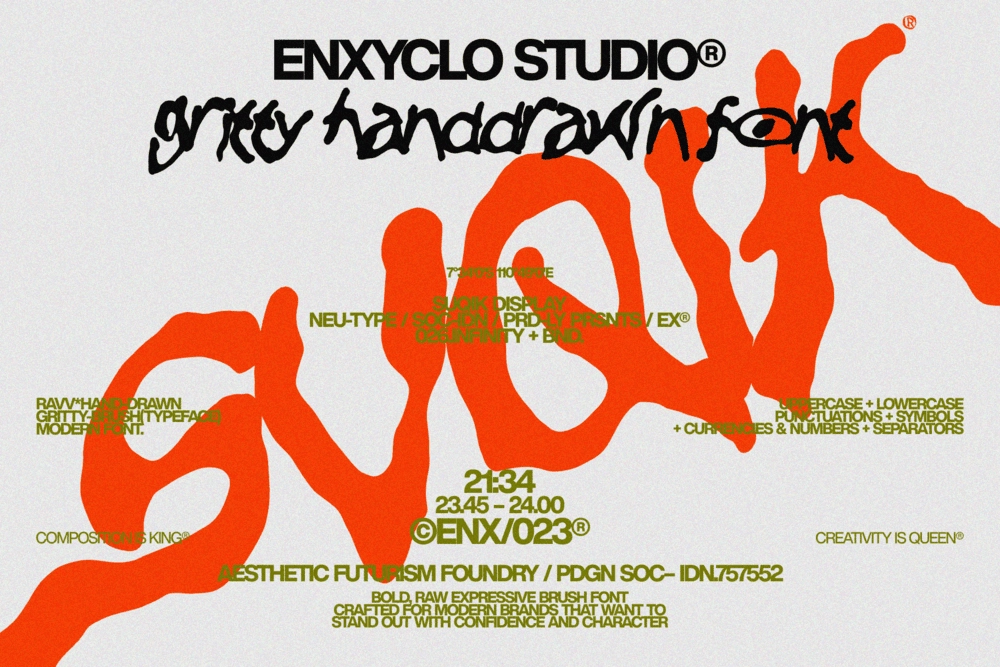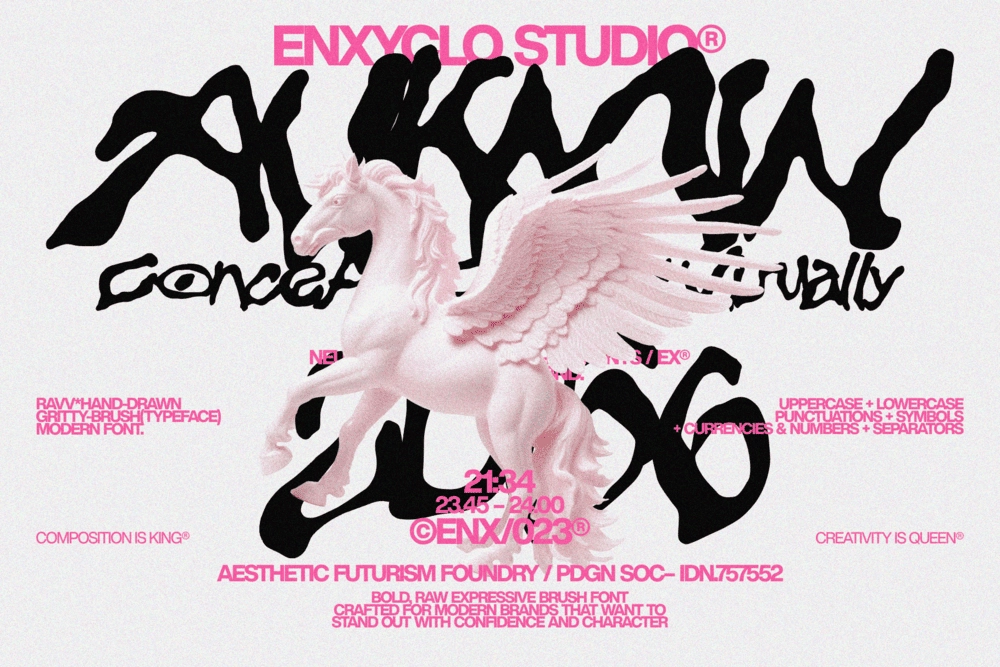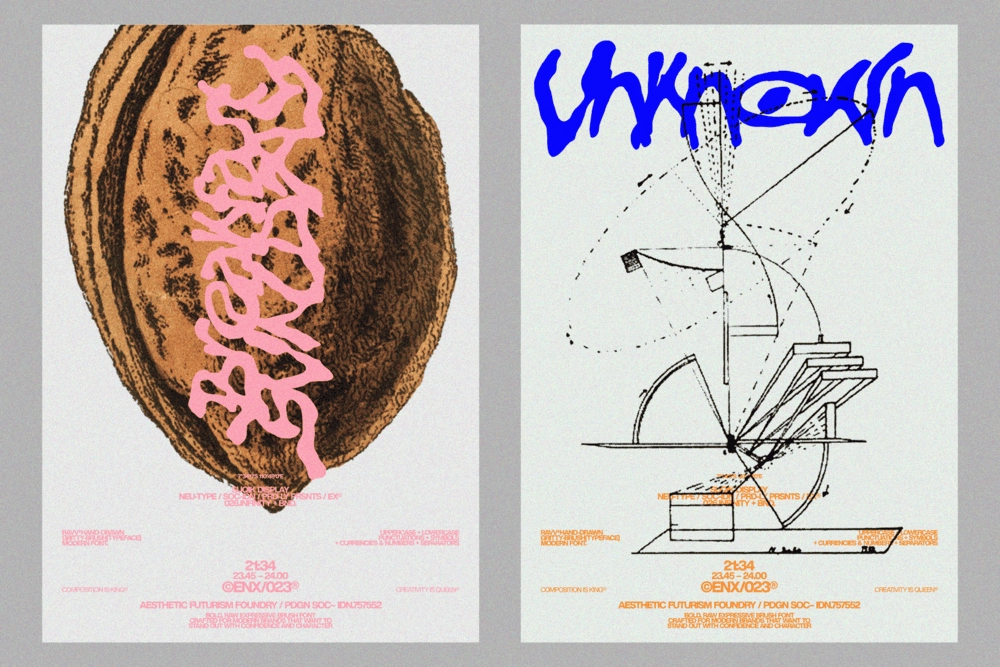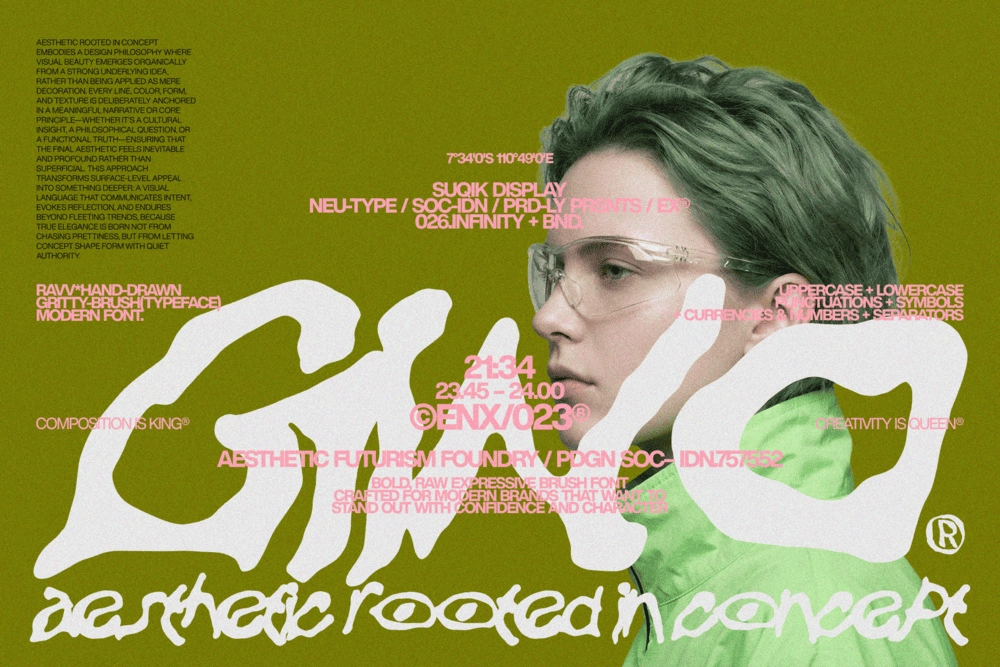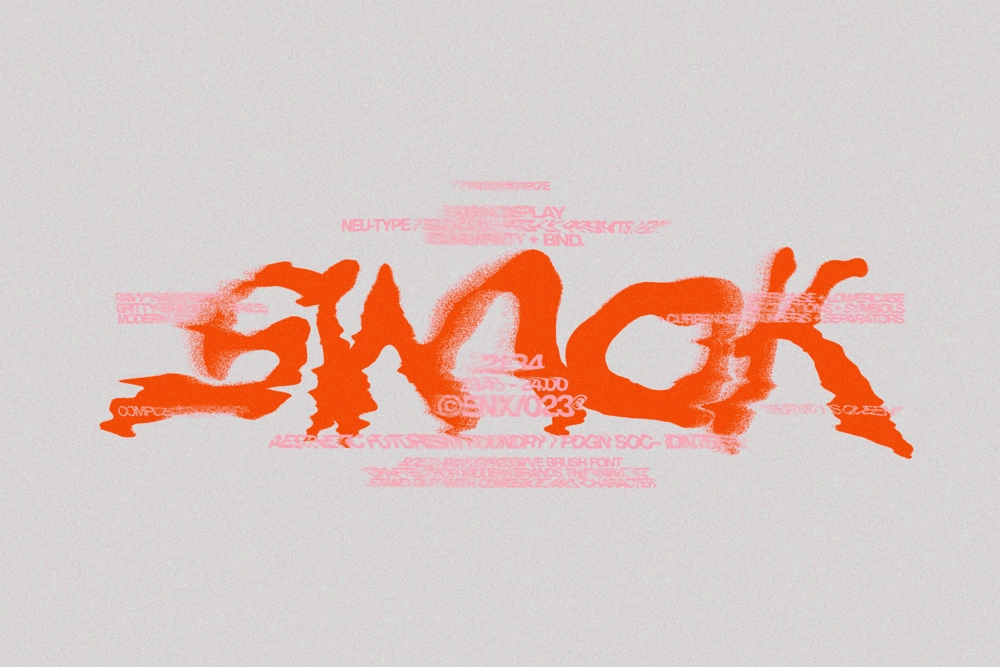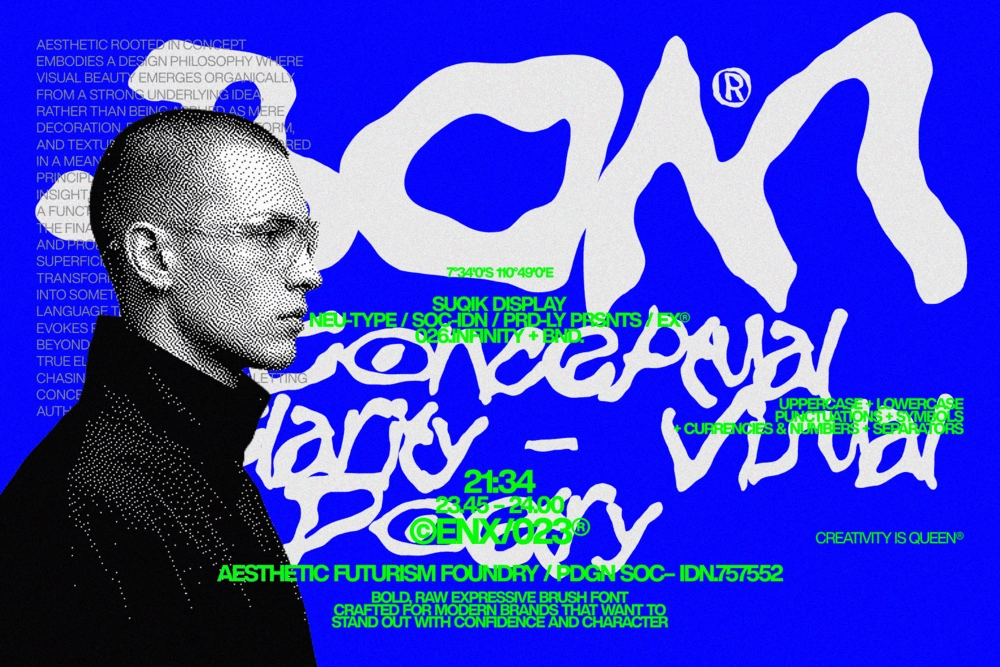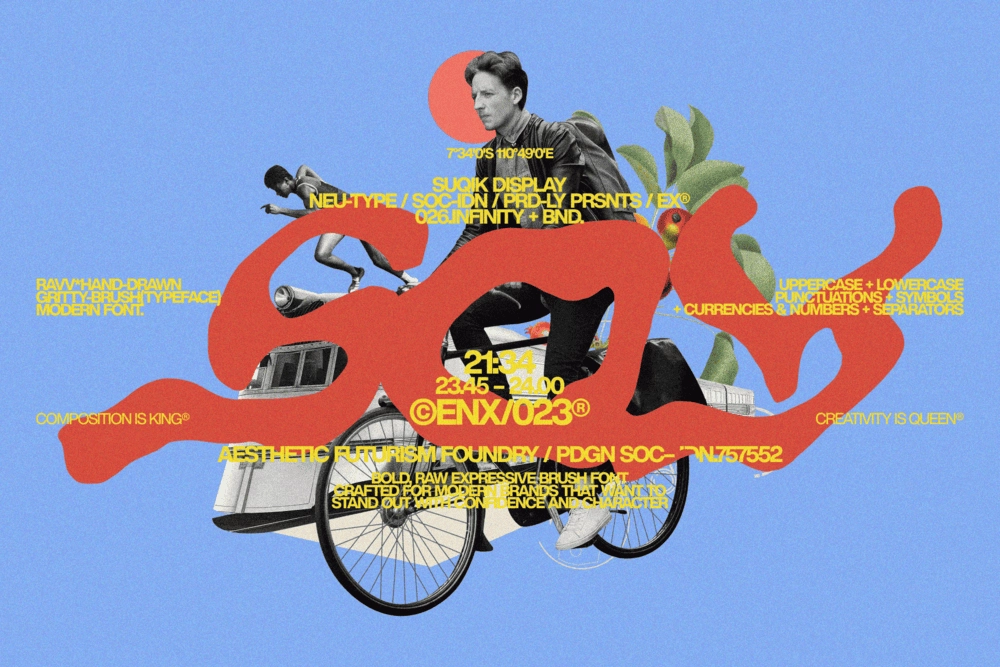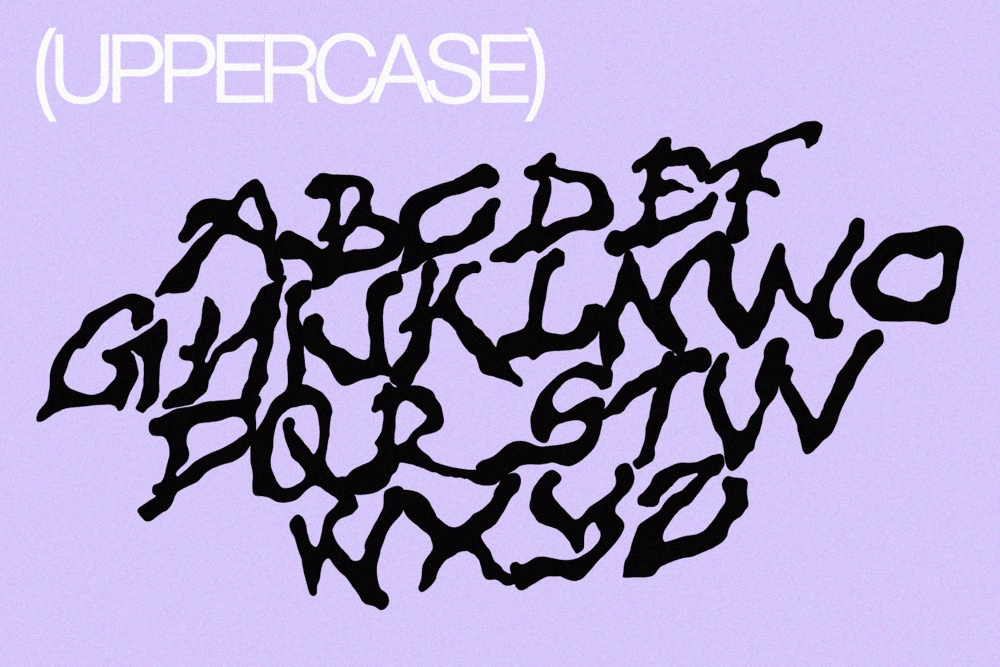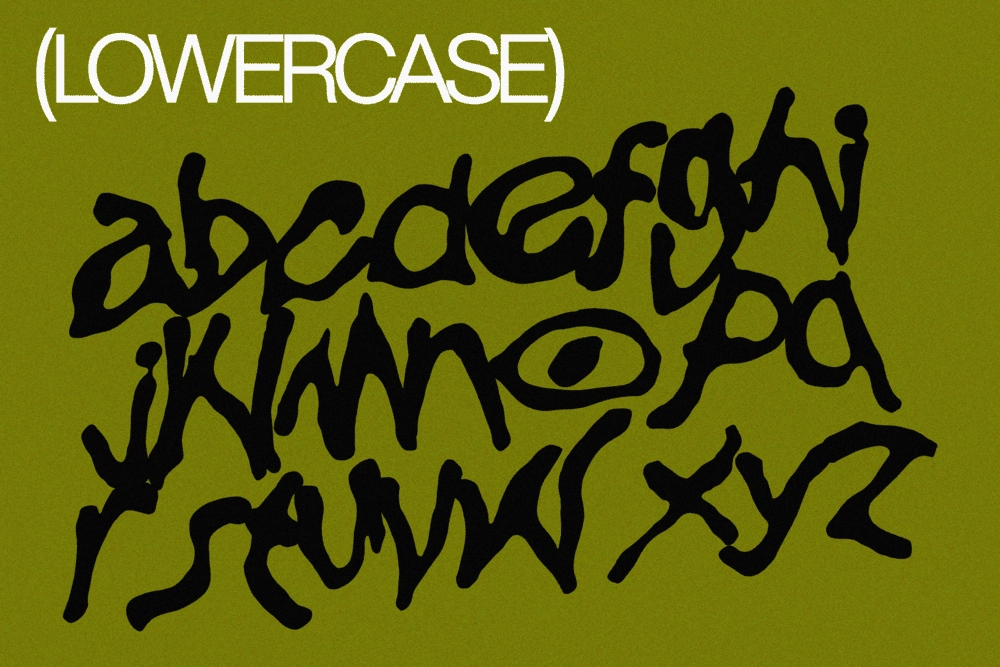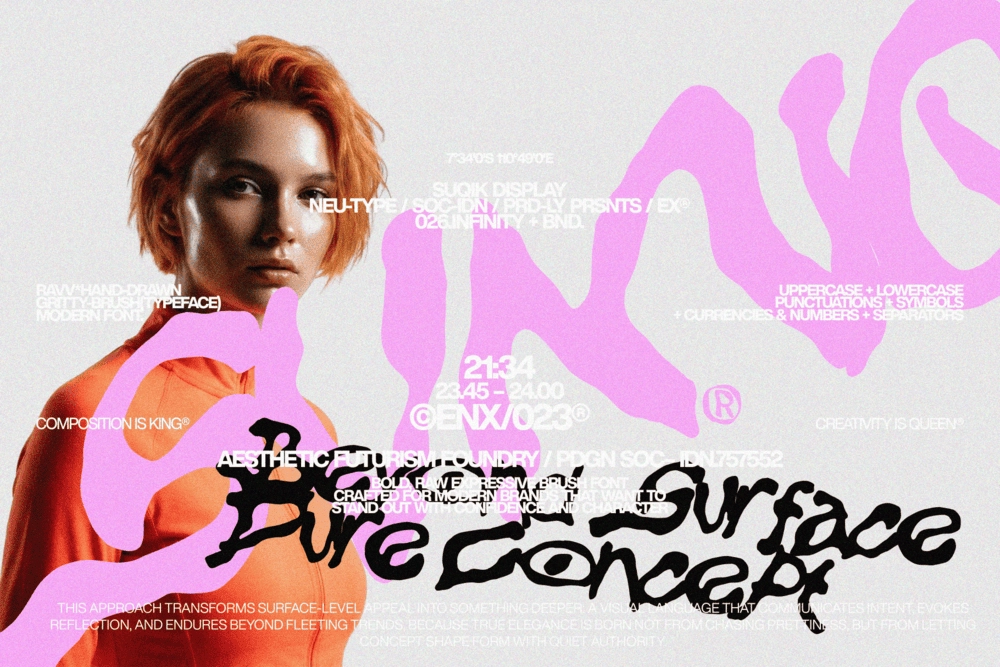
Suqik - Raw Graffiti Display Font
SUQIK
Suqik - Raw Graffiti Display Font is a raw, high-impact typeface built from energetic hand-drawn brush strokes. Designed to celebrate imperfection, it combines gritty texture with a strong modern structure, delivering expressive letterforms that feel organic, fearless, and confidently contemporary. Each character carries dynamic movement and bold presence, making it ideal for attention-grabbing typography and statement branding.
Suqik balances rough artistic character with functional clarity, allowing it to perform seamlessly across logos, headlines, packaging, and visual identity systems. Its textured brush construction adds authenticity and depth while maintaining readability for professional design applications.
- Uppercase & Lowercase Letters
- Punctuation Marks
- Extended Symbol Set
- Currency Symbols